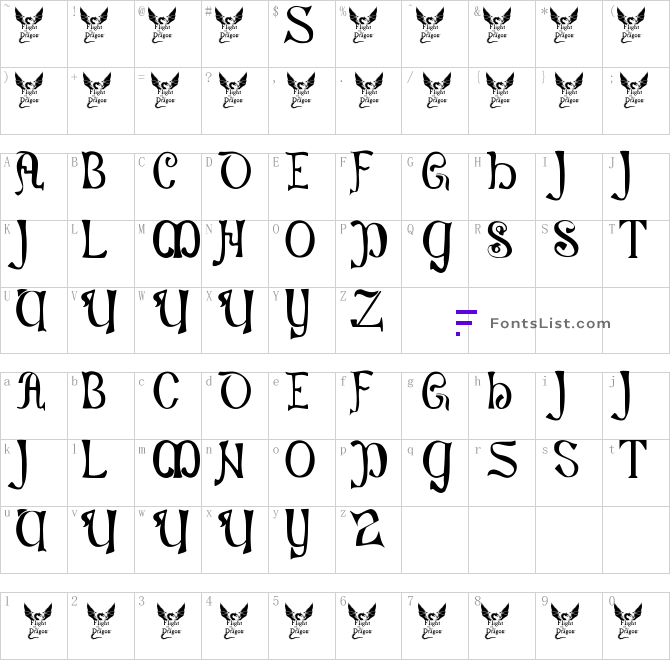
- Font Name:Battel Abbey, 8th c.
Battel-Abbey-8th-c.ttf is a very beautiful artistic font, Battel-Abbey-8th-c.ttf is widely used in the design and printing of various books and pictures,Battel-Abbey-8th-c.ttf has a strong visual impact,Battel-Abbey-8th-c.ttf is a commonly used font in newspapers, magazines and books, and is used in posters, e-commerce Poster design, store design, logo design, font design and other fields.Battel-Abbey-8th-c.